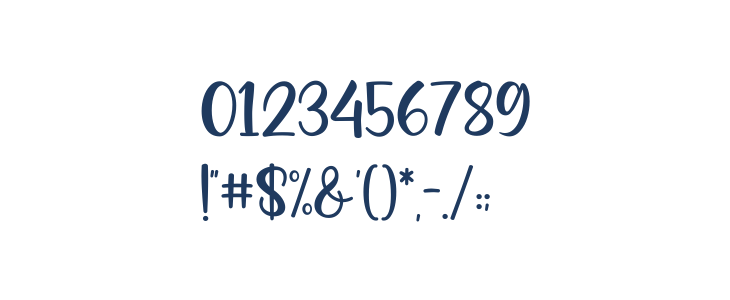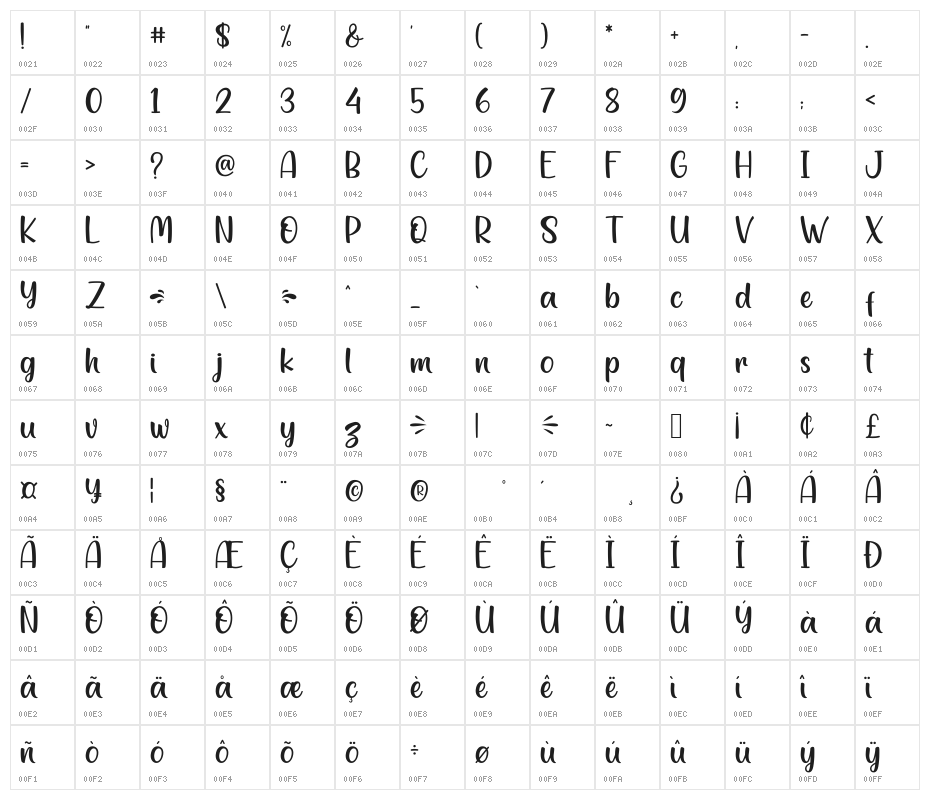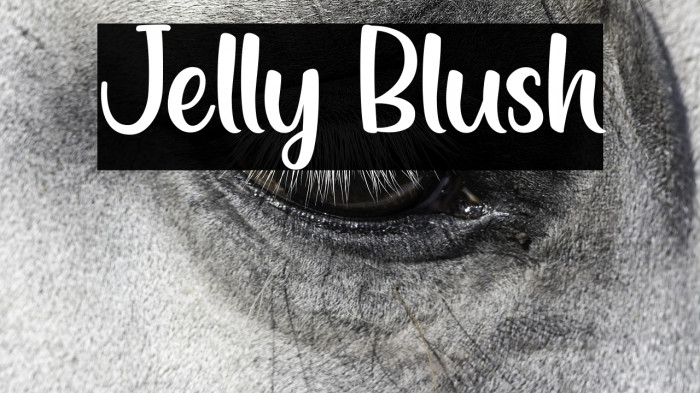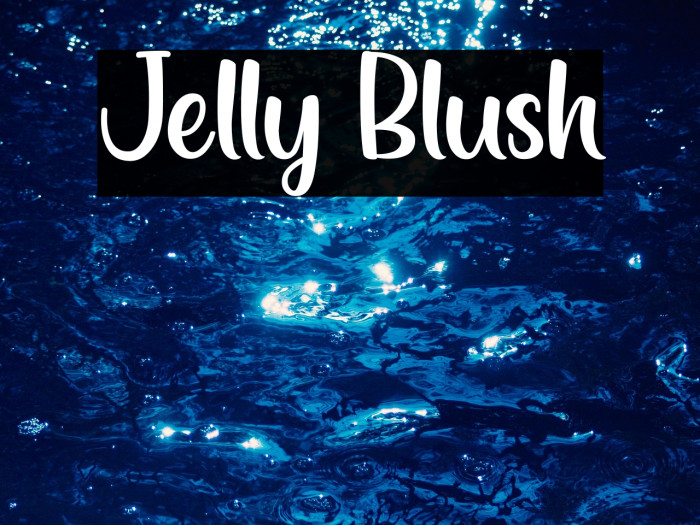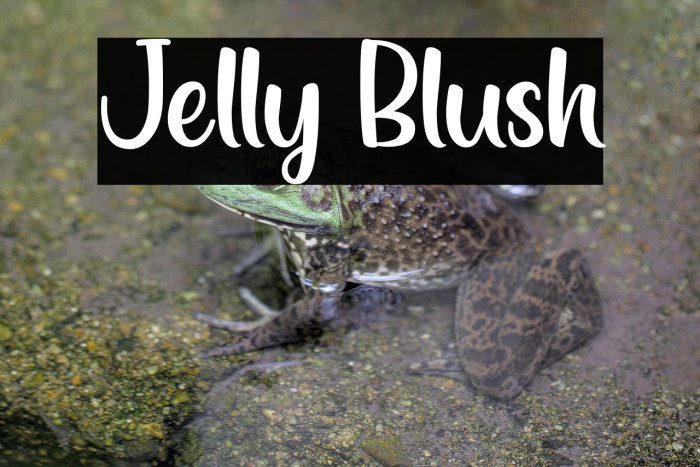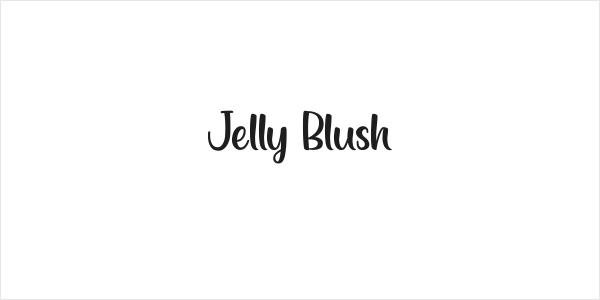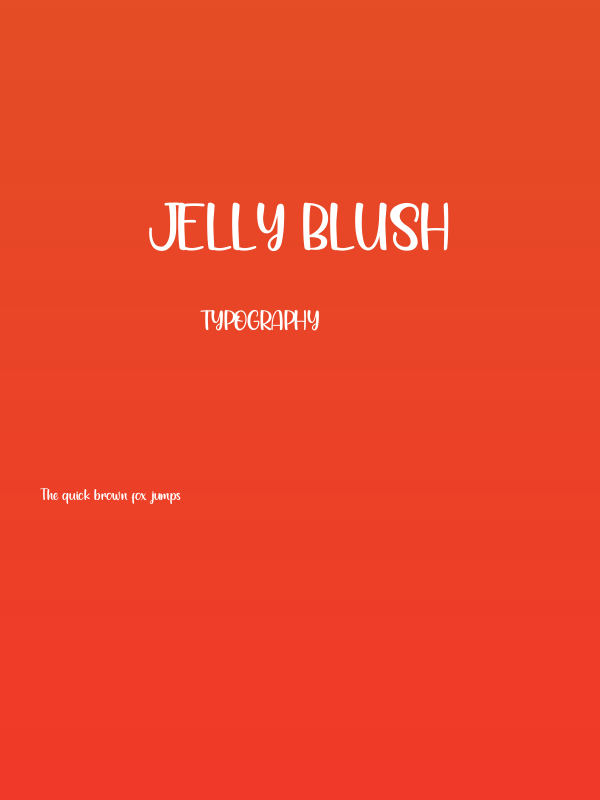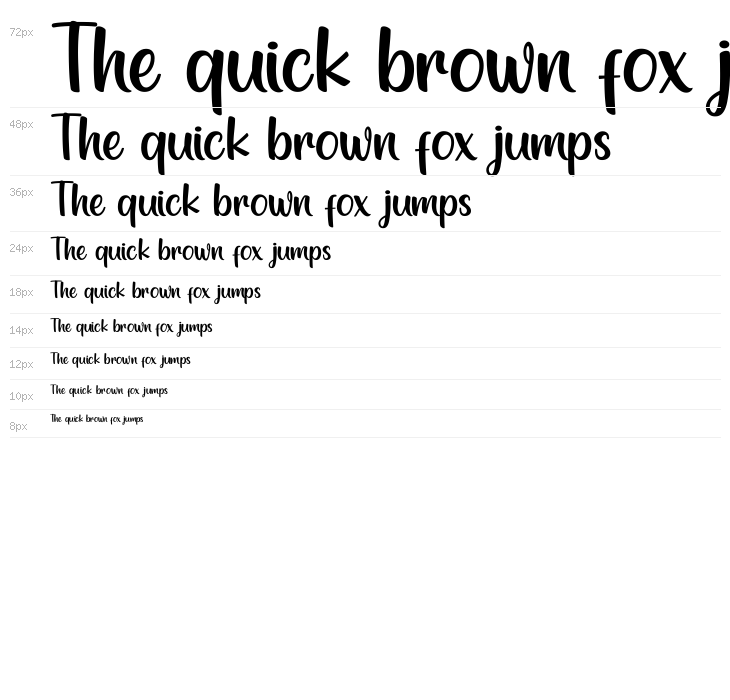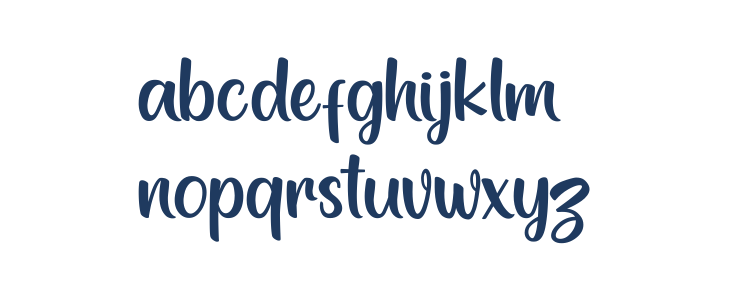
Jelly Blush Font
Jelly Blush Description
This playful and lively font features a handwritten style with a smooth, flowing appearance. The characters are bold and slightly rounded, giving them a friendly and approachable feel. The uppercase letters maintain a consistent height, while the lowercase letters have a charming, casual slant. The numerals are clear and legible, matching the overall aesthetic. Special characters are creatively designed, adding to the font's whimsical nature. This font exudes a sense of fun and creativity, making it ideal for projects that require a personal touch.